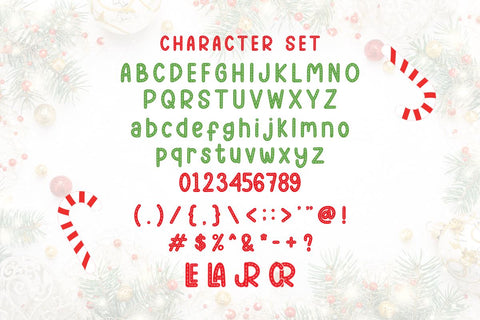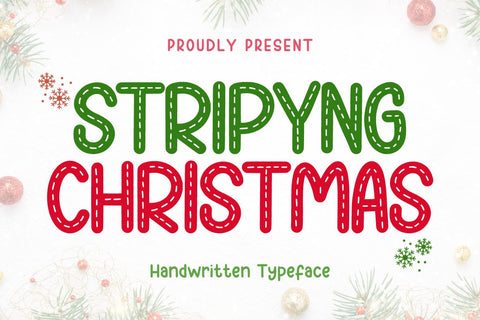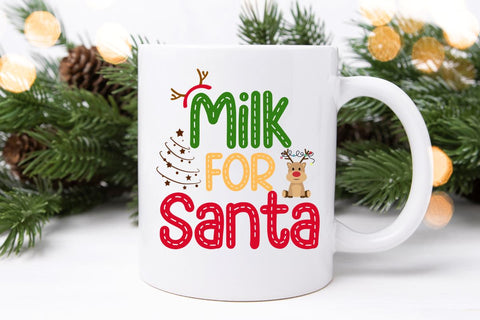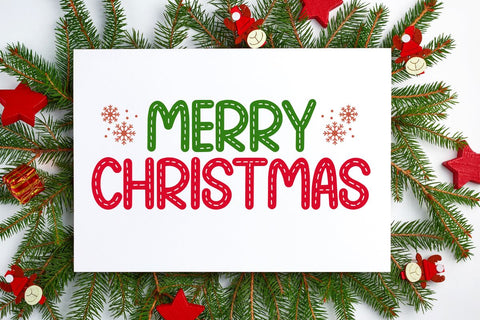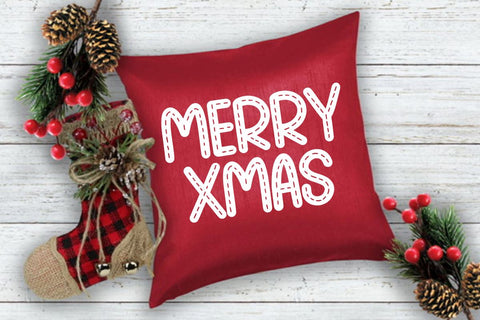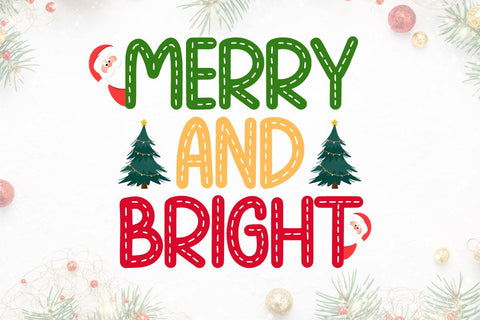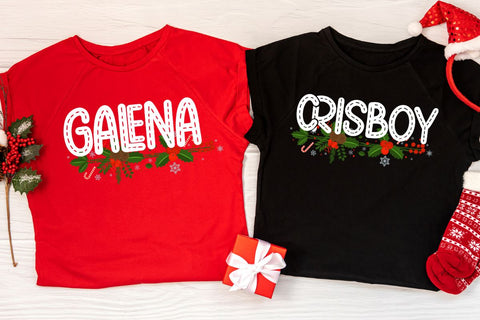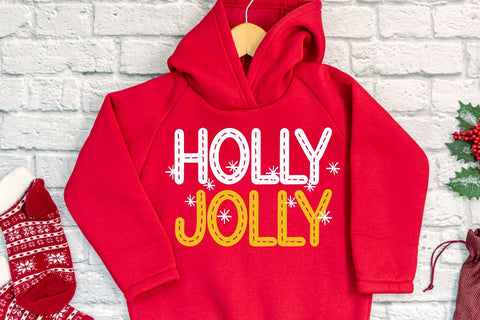
Stripying Christmas - Handwritten Typeface
Hi, Introducing Stripying Christmas - Handwritten Typeface
A Handwritten Typeface font with a cute and fun style. This font is cool for mugs, t-shirts, quotes, hoodies, pillows, greeting cards, decorations, etc